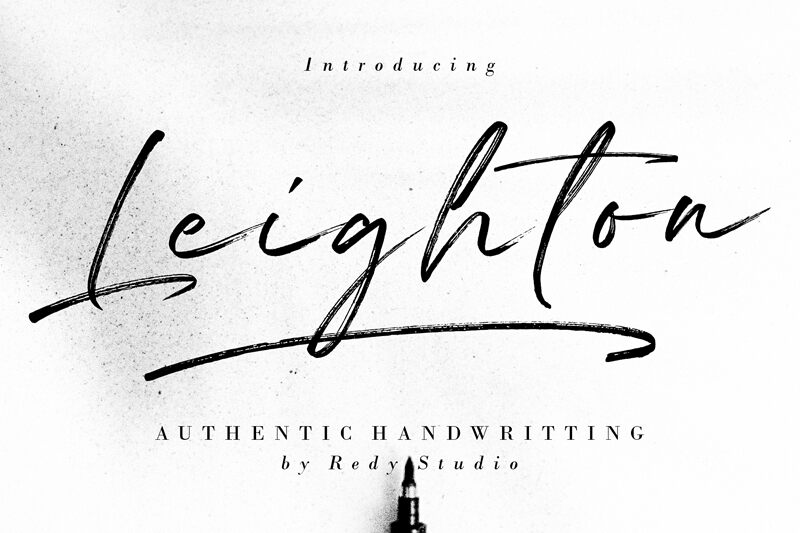
Leighton, a stunning handwritten signature font designed by Redy Studio, adds an elegant touch to any project. With its light weight and fluid strokes, Leighton is perfect for creating sophisticated branding materials such as business cards, logos, and luxury packaging. This versatile font also suits wedding invitations, fashion magazines, and lifestyle blogs. Its graceful curves and authentic feel make Leighton an exceptional choice for personal branding or any creative endeavor that seeks to convey a sense of refinement and personalized charm. Elevate your designs with the exquisite Leighton font today!